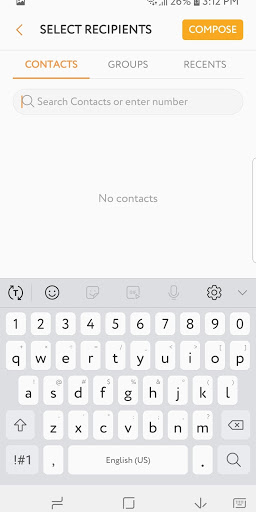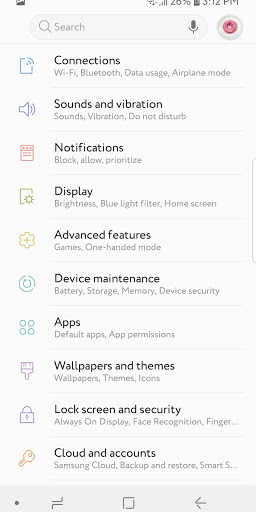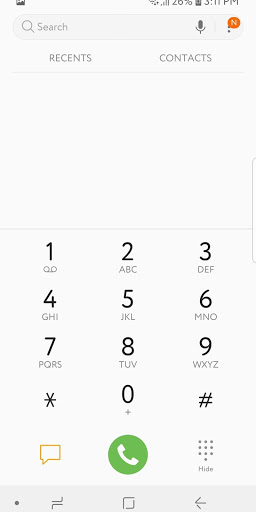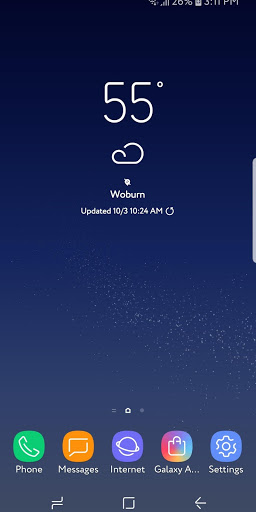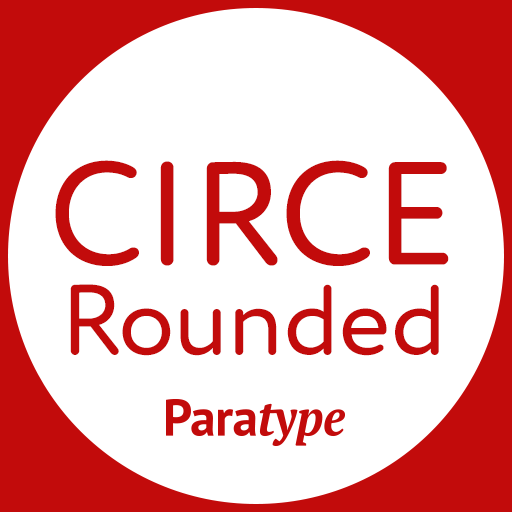
Circe Rounded Latin and Cyrillic FlipFont
Circe Rounded™ by Paratype is a friendly and easy to read font. The smooth-edged forms give it an elegant and benevolent look. It seems to be designed specifically for your device.
Pan-European and Cyrillic character set supports Western, Central and Eastern European as well as Belarusian, Bulgarian, Macedonian, Russian, Serbian and Ukrainian languages.
as close to google sans as you can get!
great look, but some symbol like star (*) not appearing as the symbol at all.